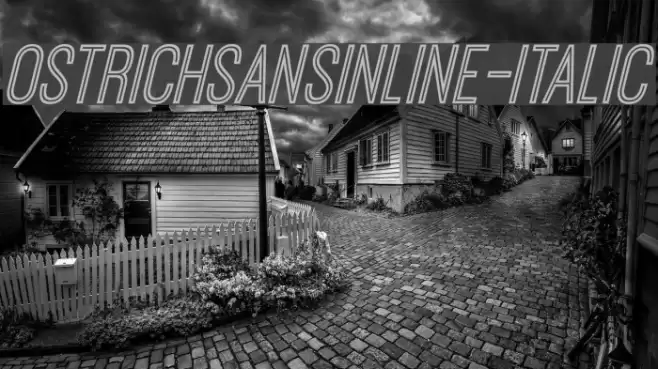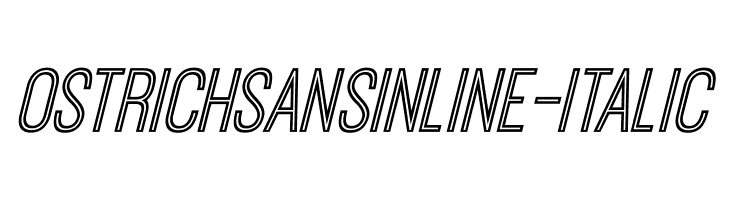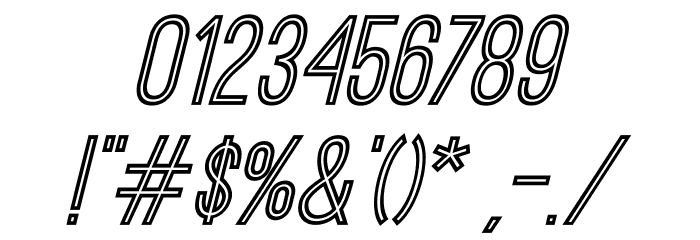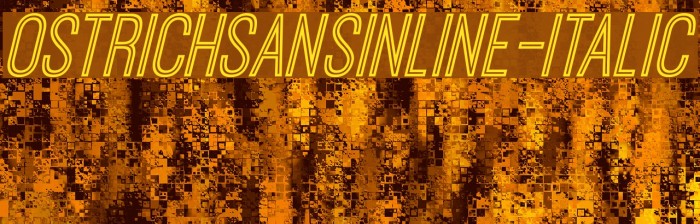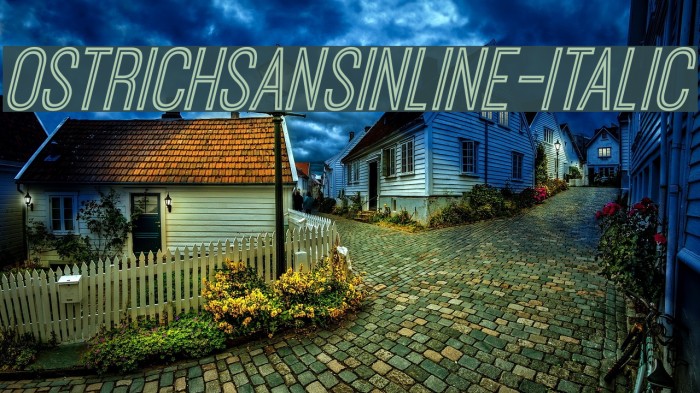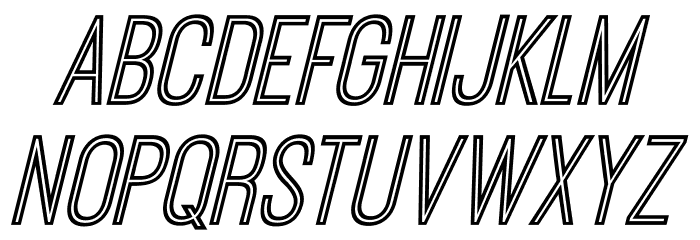
OstrichSansInline-Italic Font
OstrichSansInline-Italic Description
This font features a modern and stylish inline design with a distinct italic slant, giving it a dynamic and forward-moving appearance. The uppercase and lowercase letters are crafted with clean lines and a consistent stroke width, creating a sense of uniformity and balance. The inline style adds a unique dimension, making the characters appear both bold and airy. Numbers and special characters maintain the same aesthetic, ensuring a cohesive look across all text elements. The font's contemporary style is suitable for a variety of design applications, offering a fresh and engaging visual appeal.
A modern italic inline font with clean lines and a dynamic style from Sans Serif fonts.
- Proposed Projects: Ideal for branding, headlines, posters, and modern web design projects.